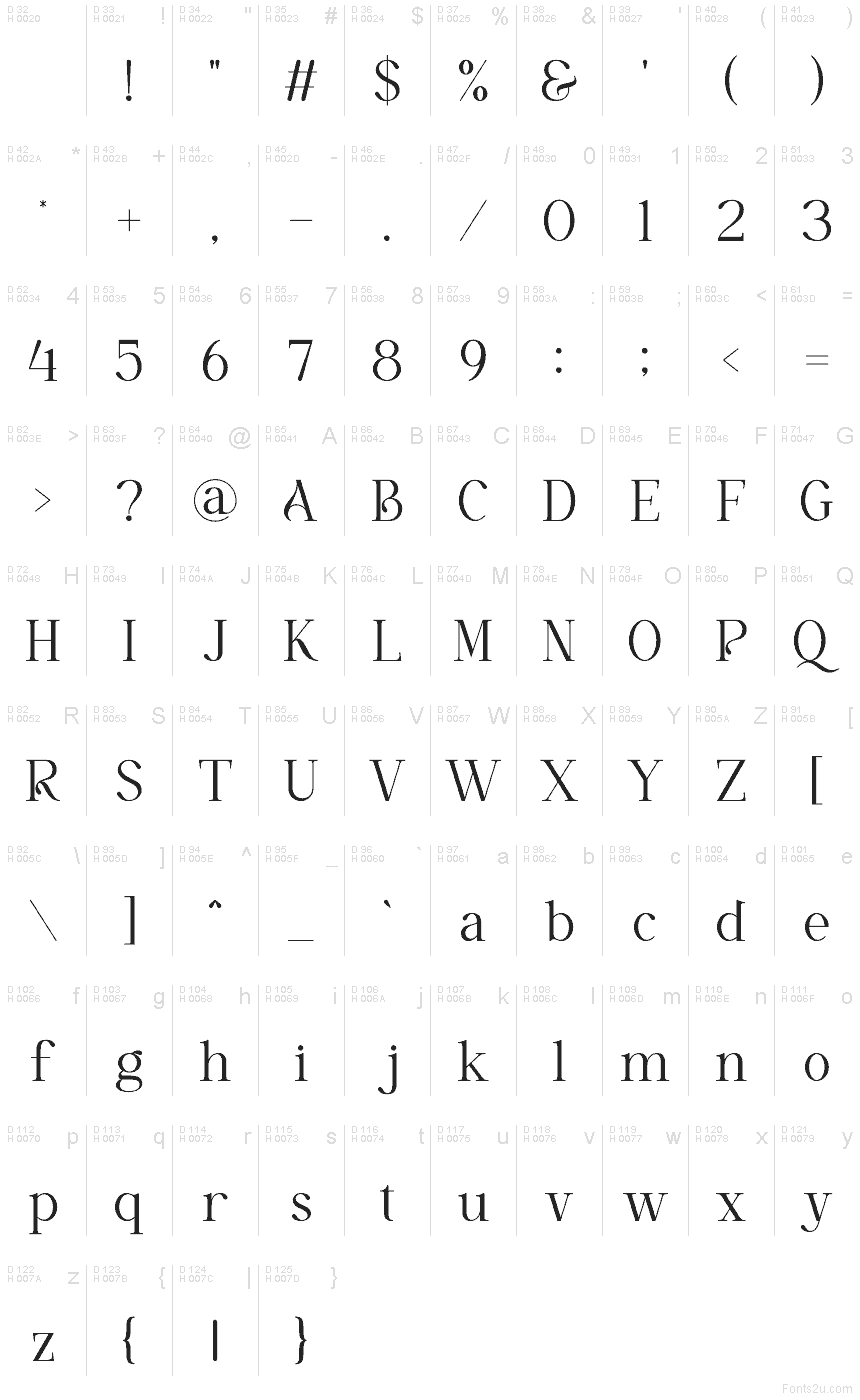
Raseko
Raseko font by ErmediaStudio 2025 is a free high‑contrast serif display font. Its defining feature is the taut interplay between razor‑fine hairlines and weighty verticals, giving each word a lacquered, editorial sheen. Curves slide in with a silky cadence while sharp serifs snap to attention, creating drama without noise.
Using Raseko, headlines land with poise on fashion branding, magazine mastheads, boutique logos, editorial pull quotes, beauty packaging, poster headlines, and website hero banners. This free font thrives large, where its glossy contrast breathes; pair it with a quiet grotesk sans to keep the spotlight on those sculpted forms and maintain a clean visual rhythm.